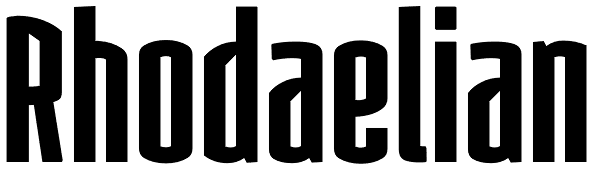
Rhodaelian
A plush, hard-hitting display type with genuine depth of design, Rhodaelian combines maximum persuasive force with stunning visual presence and more than a hint of magnetism. Rhodaelian resonates with industrial design of the early 21st century...